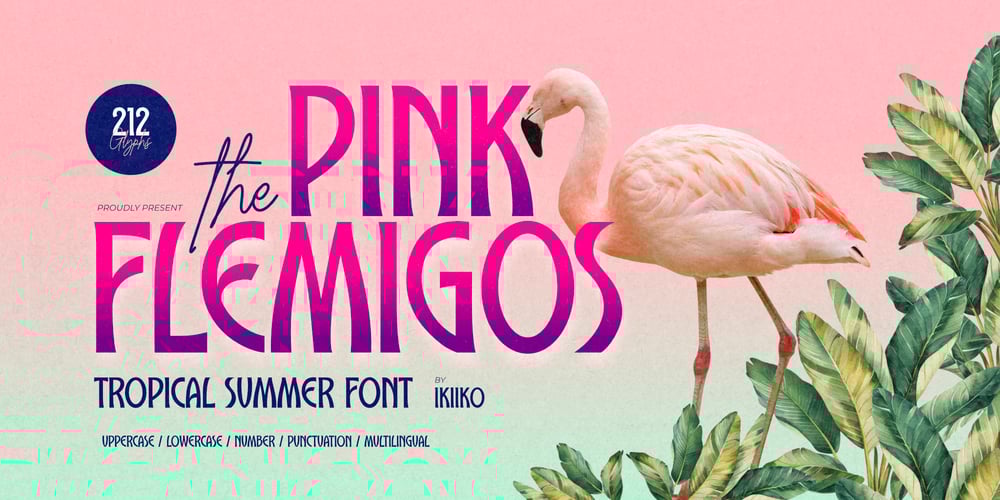
Pink Flemigos Font Family was designed by Andhika Pradana and published by IKIIKOWRK. Pink Flemigos contains 1 styles and family package options. Proudly present The Flemingos – Tropical Summer Font, created by ikiikoEmbrace the carefree vibes of the 80s with The Flemingos, a condensed sans serif font that exudes retro charm and tropical allure. This font captures the essence of summer, with its bold yet clean lines reminiscent of exotic beaches, palm trees swaying in the island breeze, and sunsets over sparkling oceans. Perfect for designs that need a splash of nostalgia, from summer party invites to tropical-themed branding, The Flemingos brings the warmth and vibrancy of a retro paradise to life. Let your creativity take a vacation with this tropical-inspired typeface!This font is very suitable for making a beach party poster, tropical style design, retro 80s vibes design, magazine layout, food & beverages, quotes, or simply as a stylish text overlay to any background image.What’s Included? Uppercase & Lowercase Numbers & Punctuation Multilingual Support Works on PC & Mac Get also a good offer & FREEBIE at our site : www.ikiiko.comEnjoy our font and if you have any questions, you can contact us by email : ikiikowrk@gmail.com